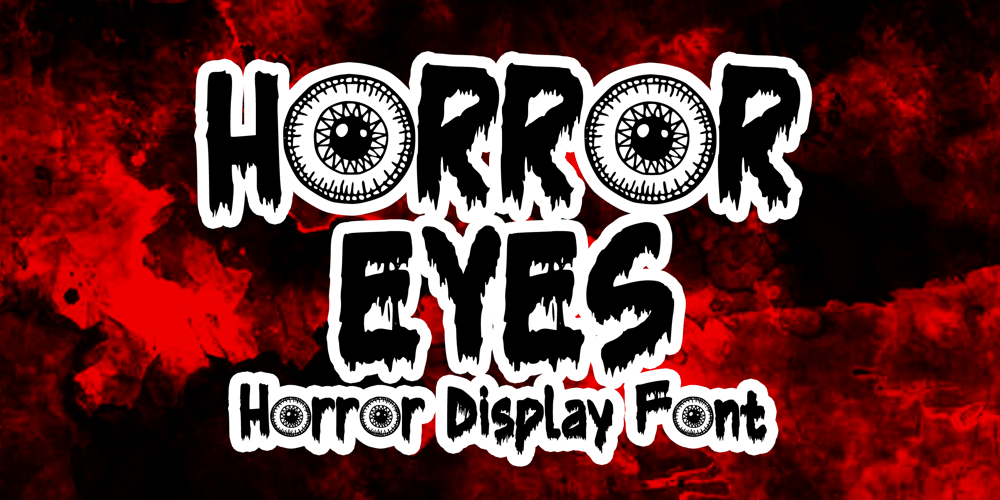
Horror Eyes
Horror Eyes font
Horror Eyes Font Family was designed by Gabriel Valentinus and published by Mvmet. Horror Eyes contains 1 styles and family package options. Horror Eyes is a fantastic and playful horror font inspired by vintage horror movies, comics, and Metal music. It will be perfect for your horror and Halloween themed needs! You can use it for anything ranging from merchandise like t-shirts and clothing, for your scary book designs, Halloween party needs, greeting cards, stickers, posters, banners, or anything that needs a horror touch.